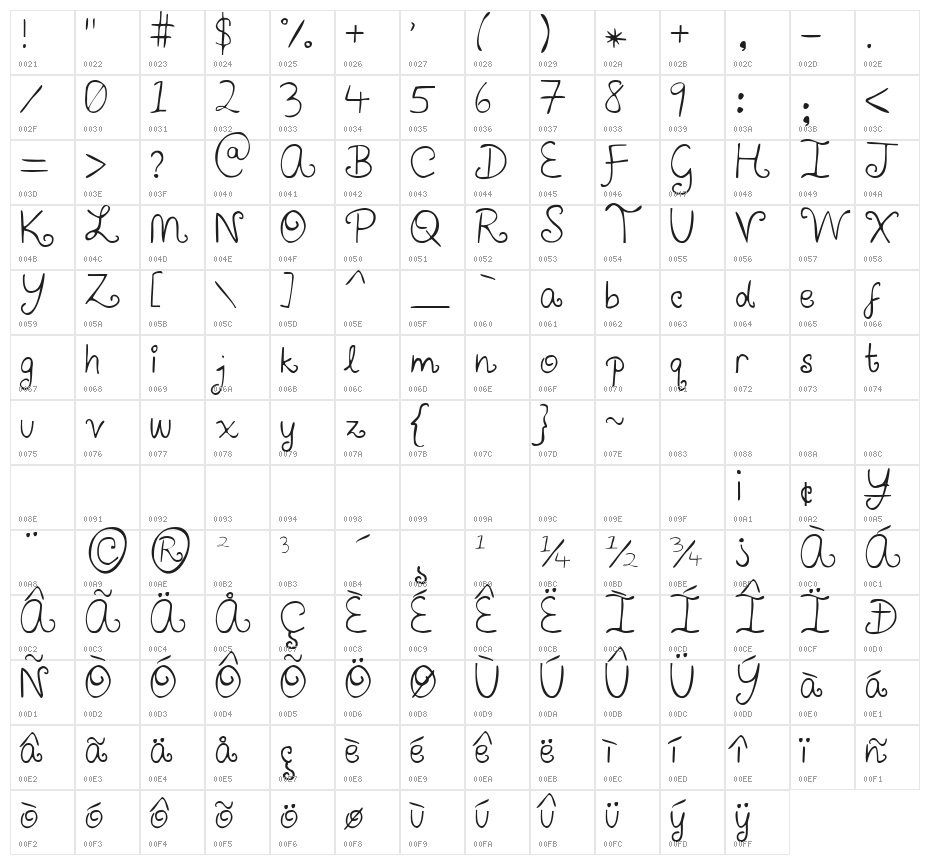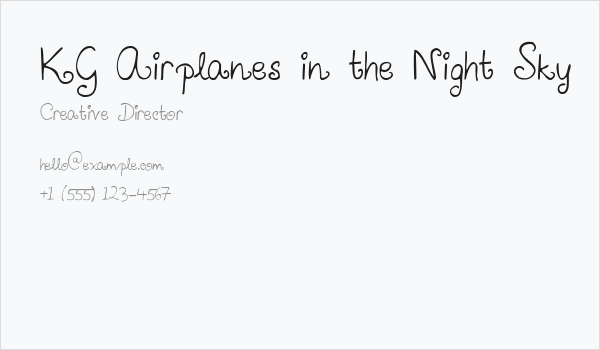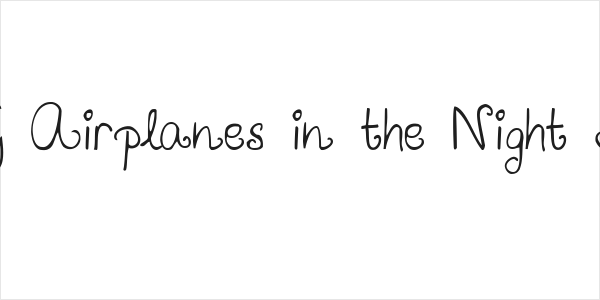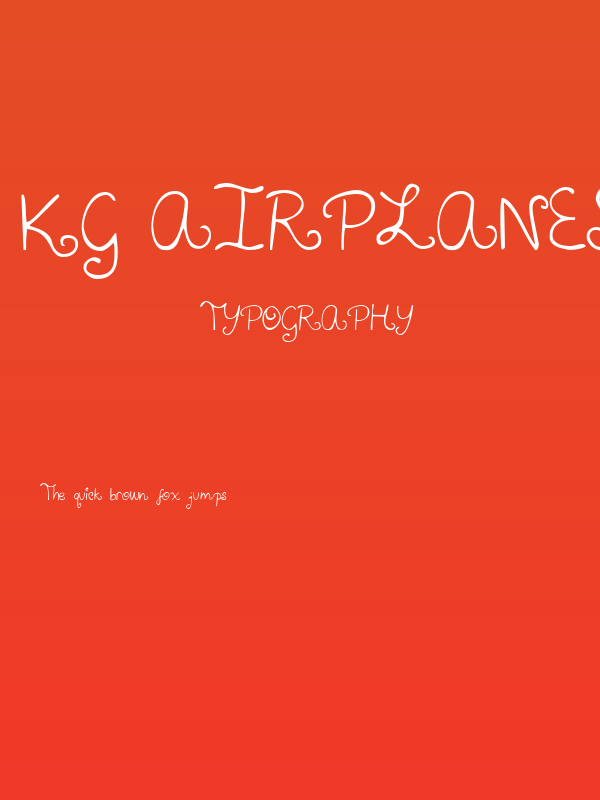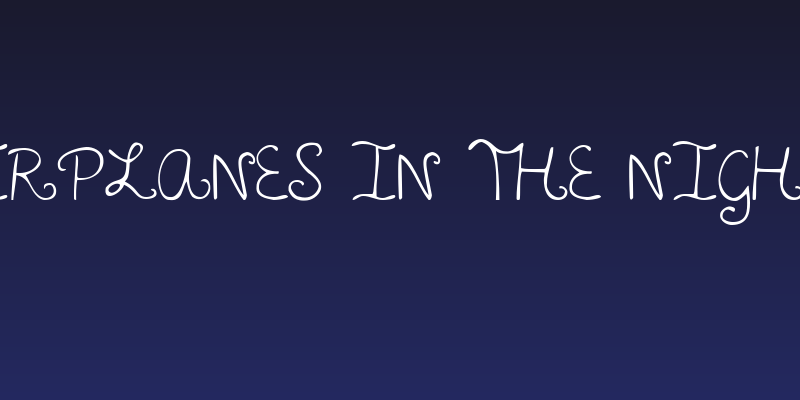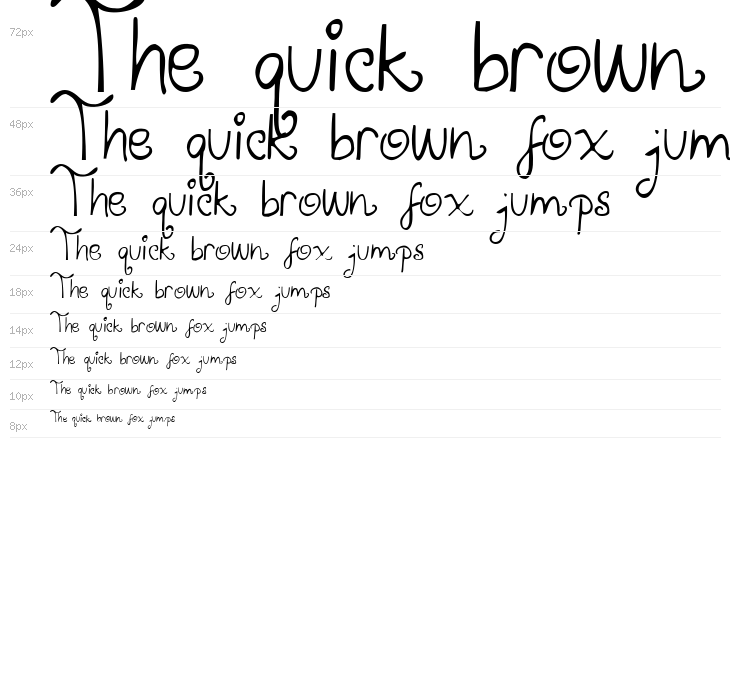
KG Airplanes in the Night Sky Font
KG Airplanes in the Night Sky Description
This whimsical and playful font features a handwritten style with a unique flair. The uppercase letters are characterized by their curly and looping strokes, giving them a lively and dynamic appearance. The lowercase letters maintain this playful aesthetic, with some letters extending below the baseline, adding to the font's charm. The numerals are bold and slightly irregular, enhancing the casual, hand-drawn feel. Special characters are creatively designed, maintaining consistency with the overall style. This font exudes a sense of fun and creativity, making it ideal for projects that require a personal touch.
| Overall Style | Playful, Creative |
| Use Case | Headlines, Invitations, Greeting Cards |
| Proposed Projects | Ideal for children's book covers, playful invitations, greeting cards, and creative branding. |